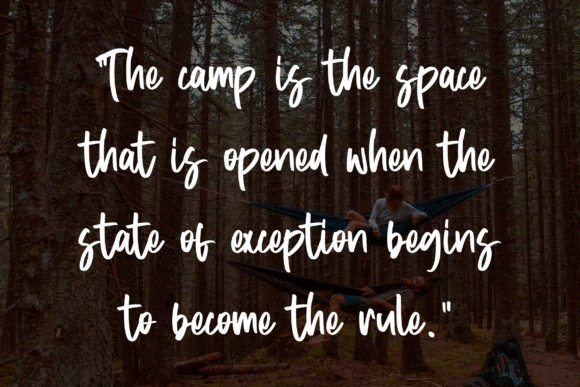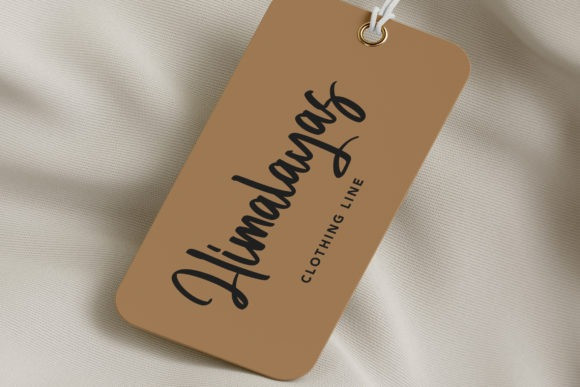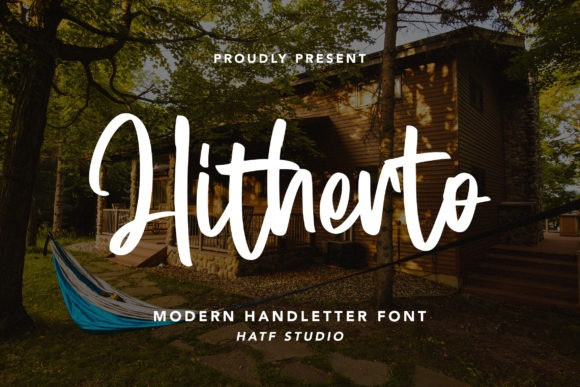
Hitherto Font
Hitherto Script Font is a casual, approachable and relaxed handwritten font. It will look stunning on any poster, flyer or print.
Use this font for your designs and explore its endless possibilities.